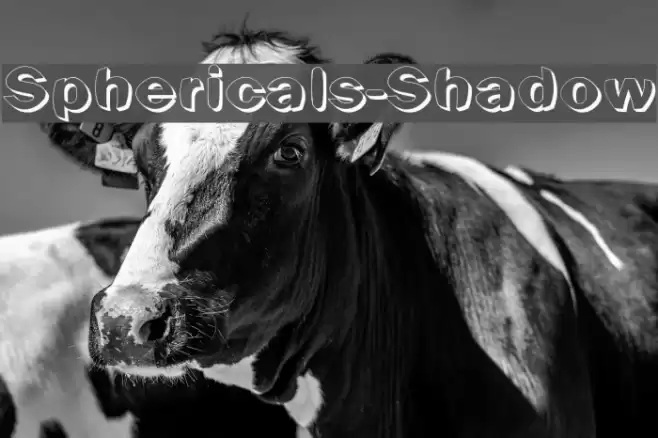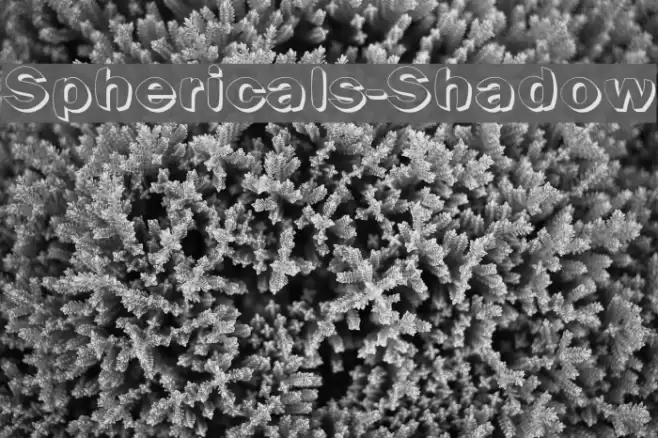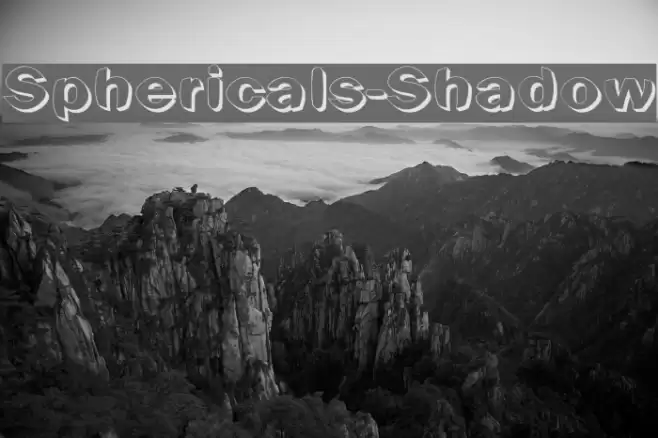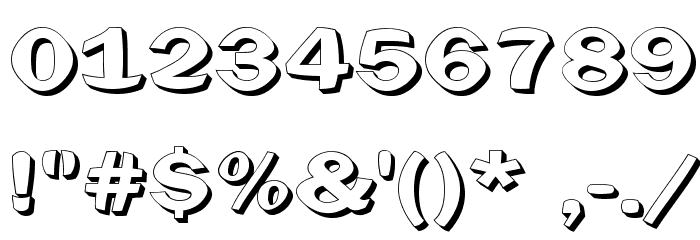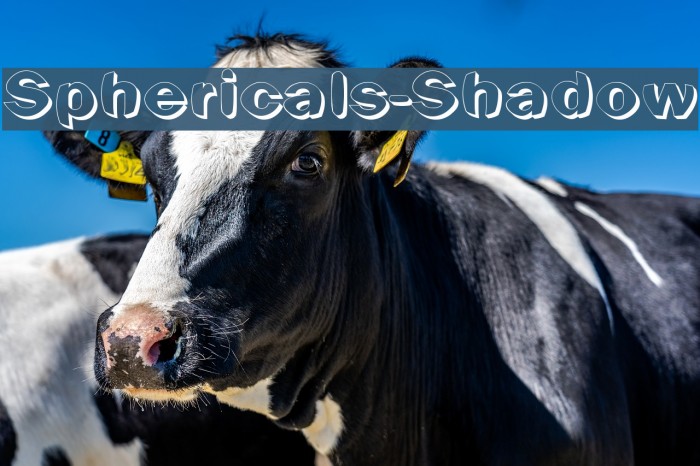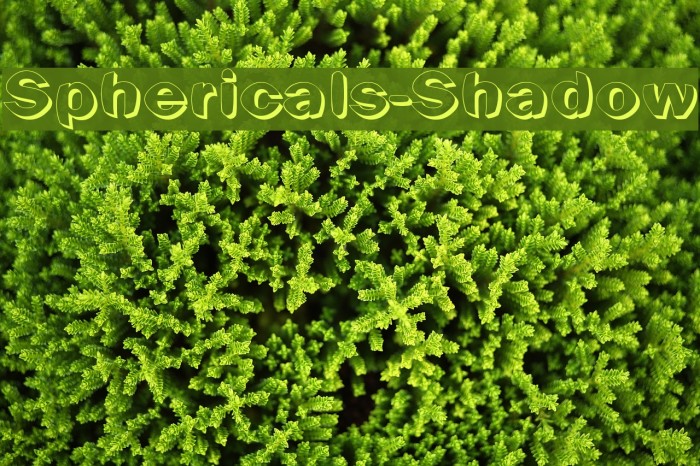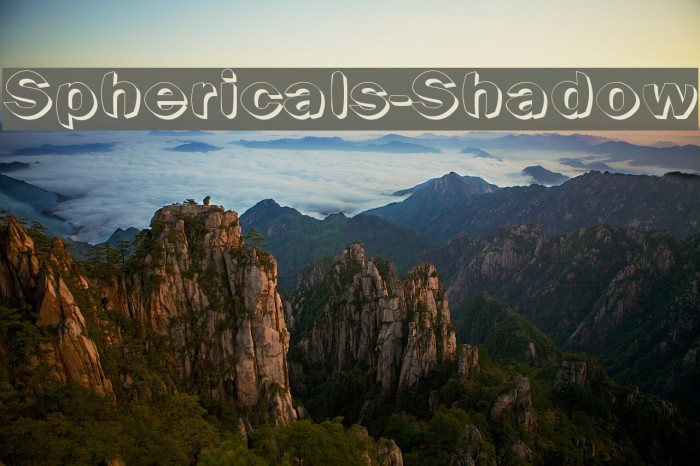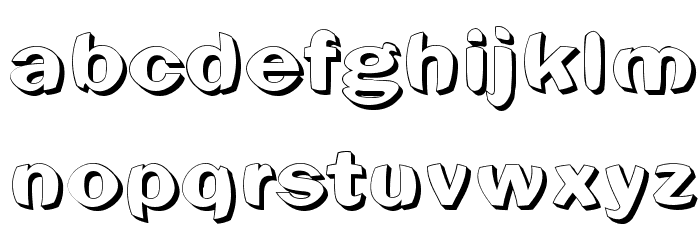
Sphericals-Shadow Font
Sphericals-Shadow Description
This font features a bold, three-dimensional effect with a shadow that gives it a playful and dynamic appearance. The characters are rounded and thick, creating a sense of depth and volume. The shadow effect is consistent across all characters, enhancing the overall visual impact. The font is highly legible and stands out due to its unique style, making it suitable for eye-catching designs. The uppercase and lowercase letters maintain a consistent style, and the numerals are equally bold and prominent. Special characters are included, matching the overall aesthetic of the font.
A bold, three-dimensional font with a playful shadow effect.
- Proposed Projects: Ideal for posters, headlines, children's books, and playful branding projects.
- Overall Style: Playful, Modern